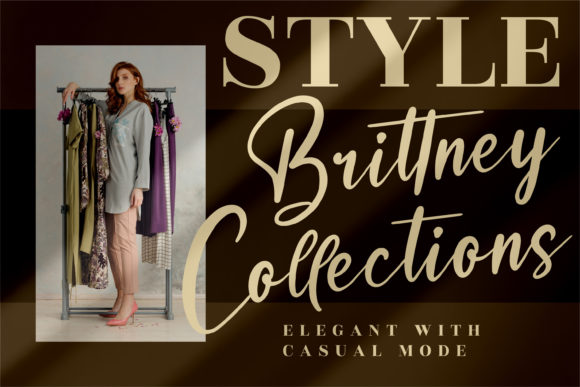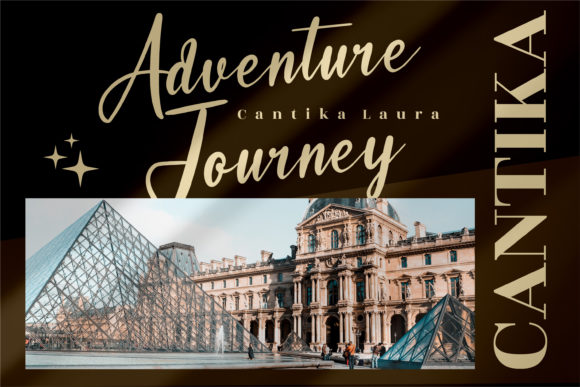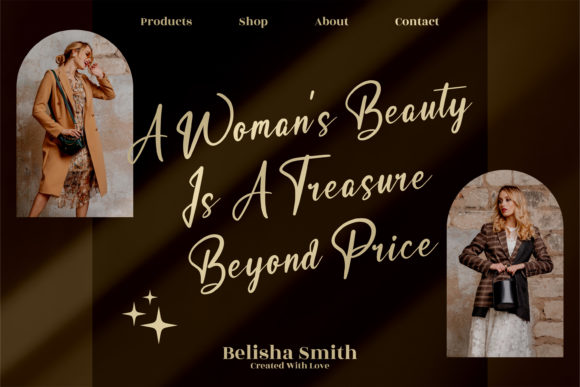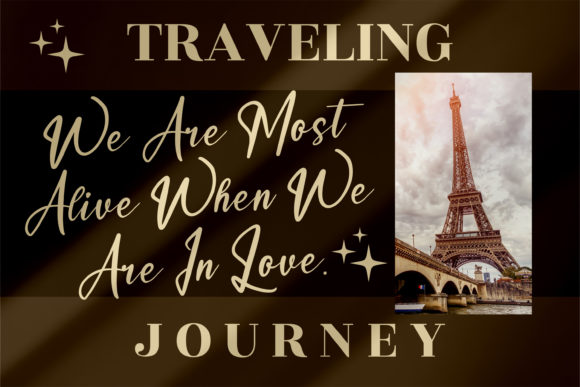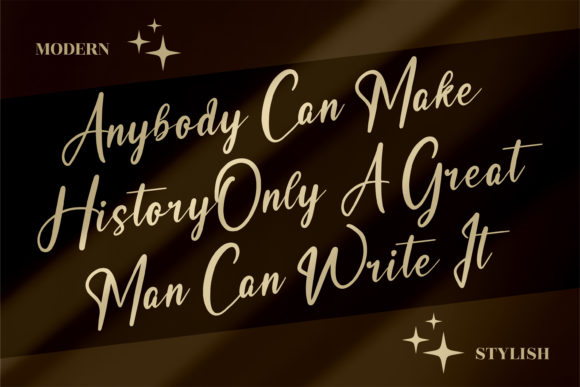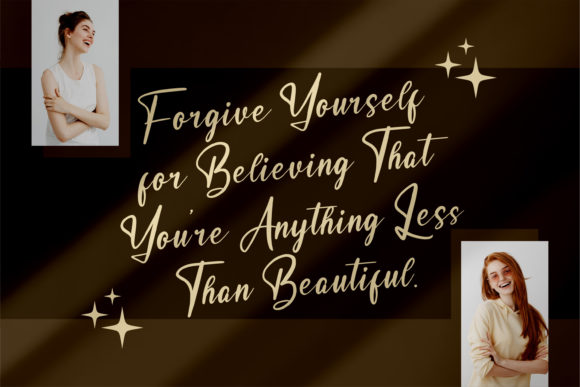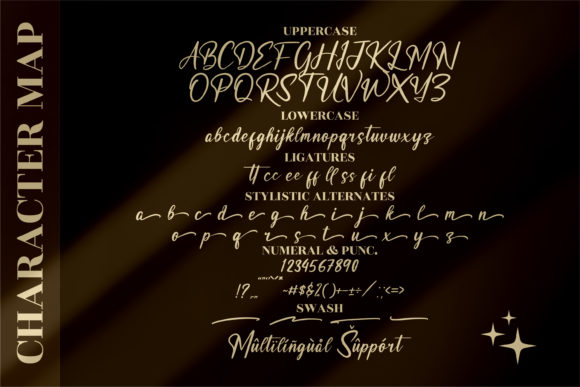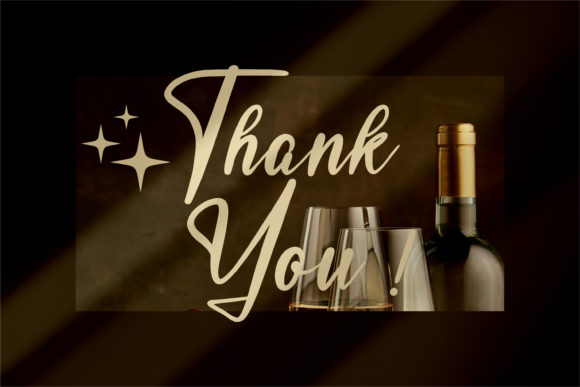
Bastian Richardo Font
About Bastian Richardo Font
Bastian Richardo is a sweet, relaxed, and flowing script font. Featuring characters that dance along the baseline, this font will add a luxury spark to any design project that you wish to create!